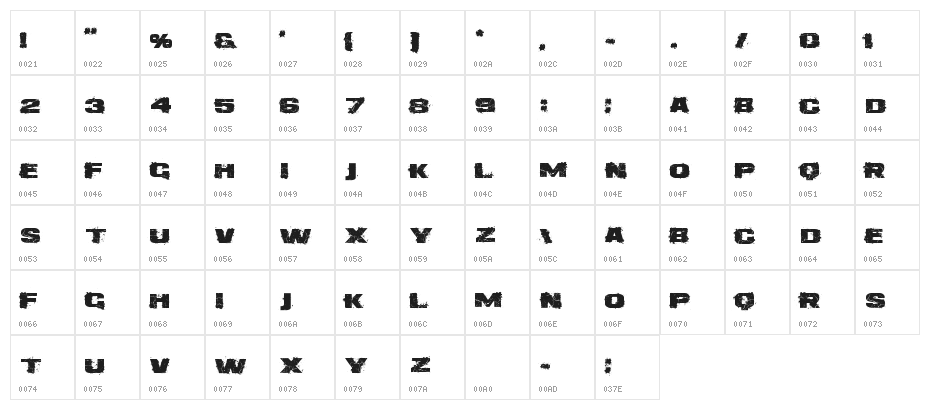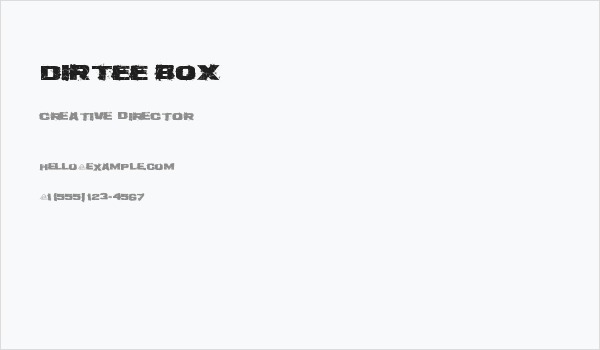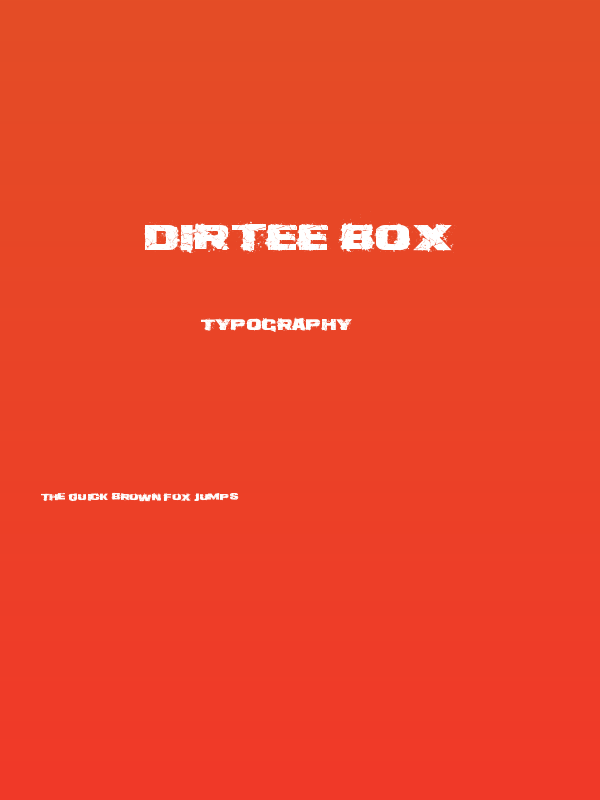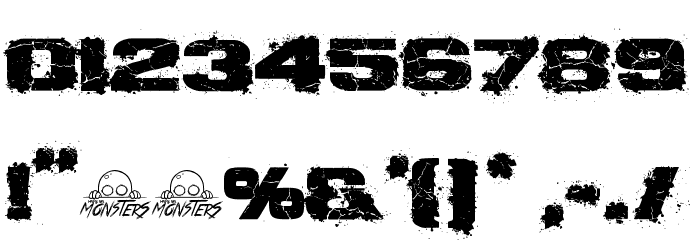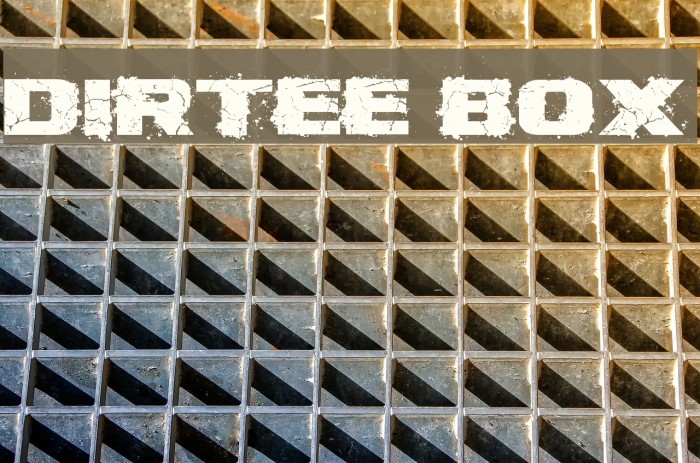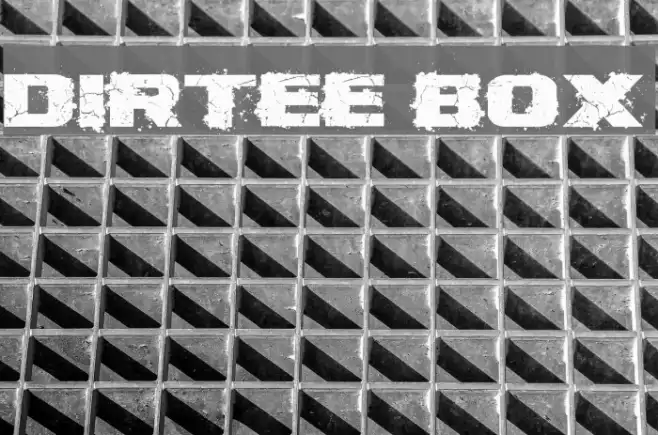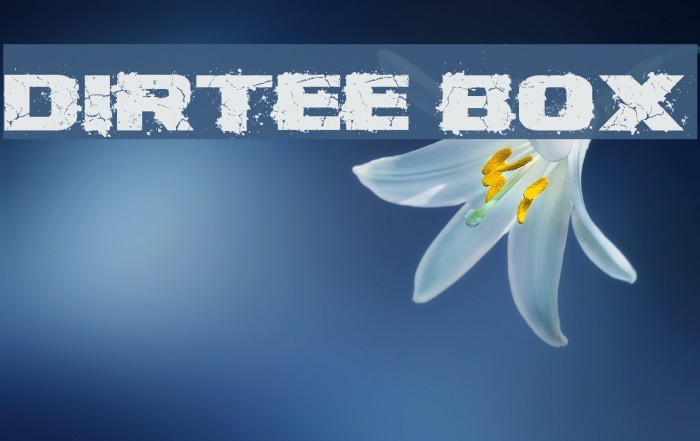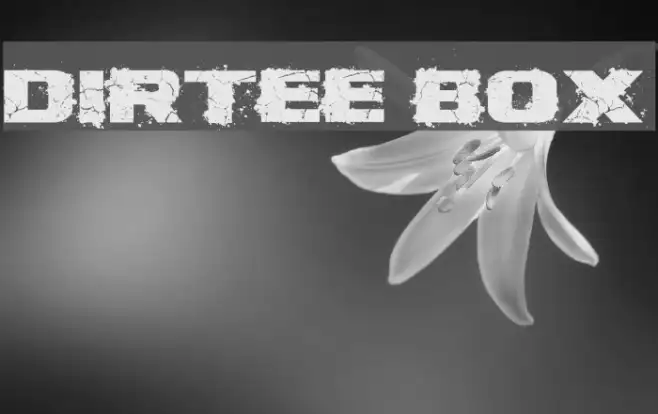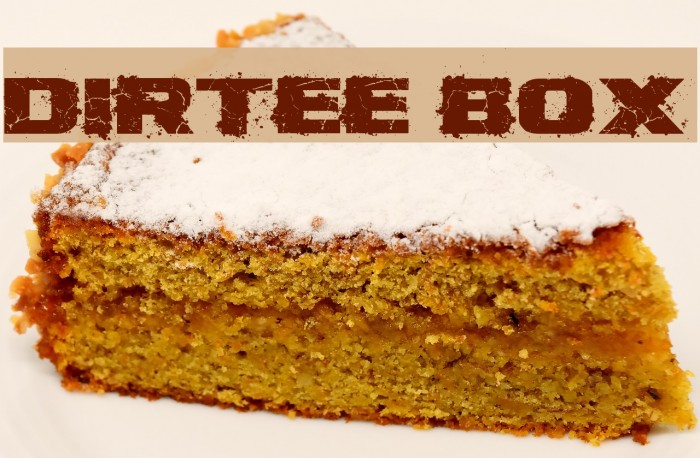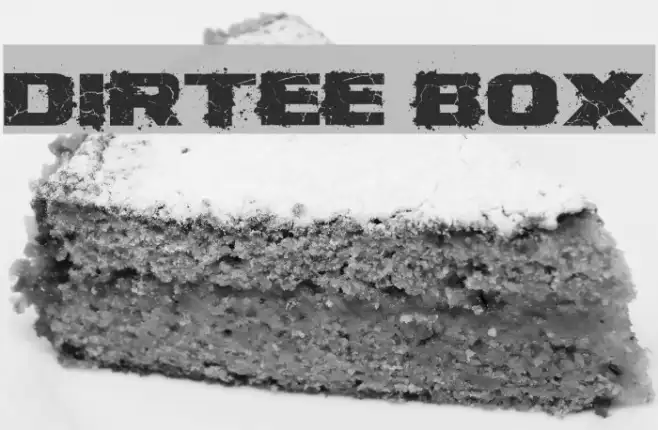
Dirtee Box Font
Dirtee Box Description
This font features a rugged, distressed appearance, giving it a grunge and urban feel. The characters are bold and heavily textured, with a worn-out look that suggests a sense of decay or erosion. The uppercase and lowercase letters maintain a consistent style, with rough edges and irregularities that add to the font's gritty aesthetic. Numbers and special characters follow the same design, ensuring a cohesive look across all text. This font is ideal for projects that require a raw, edgy vibe, such as music album covers, streetwear branding, or event posters.
| Overall Style | Grunge, Urban |
| Proposed Projects | Album covers, streetwear branding, event posters, graffiti art, and urban-themed designs. |